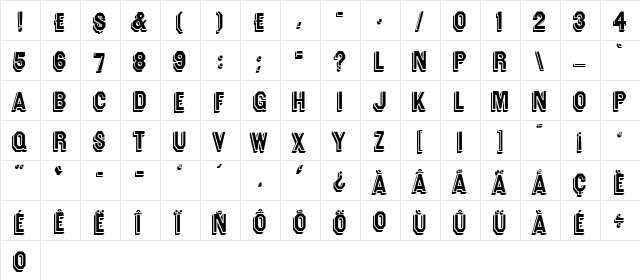
VintageGothic-BlackFace Regular
Design Context for VintageGothic-BlackFace Typeface
VintageGothic-BlackFace wears its vintage influences proudly, with letterforms that recall mid-century signage, classic packaging, and nostalgia-driven design.
Font Pairing: Combine VintageGothic-BlackFace with a simple slab or neutral sans — period-accurate companions reinforce the vintage feel without competing for attention.
Pro Tip: Lean into VintageGothic-BlackFace's period character by pairing it with aged paper textures, muted colour palettes, and vintage illustration styles.